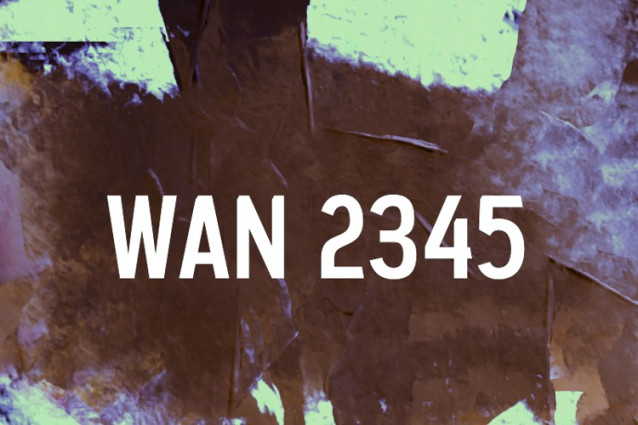
Wan 2345 Font
Wan 2345 Font a bold statement with our latest sans-serif font. With its clean lines and modern appeal, this font is sure to turn heads and leave a lasting impression. Perfect for headlines, logos, and any design that demands attention. It is both functional and stylish, making it a versatile choice for a wide range  of design projects.